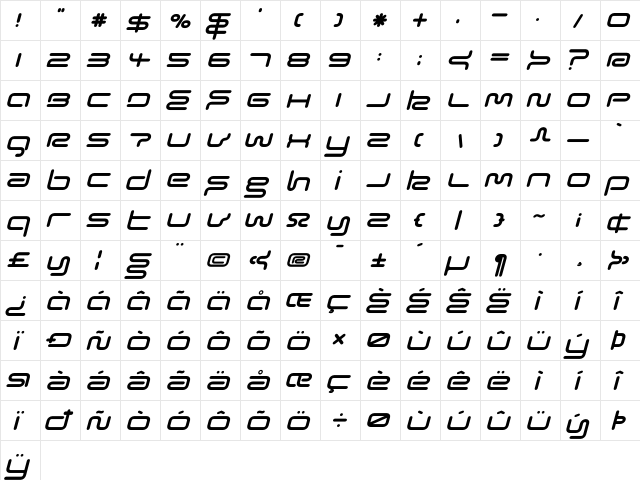
Euphoric HeavyItalic
Design Context for Euphoric Typeface
Euphoric is a composed and adaptable typeface that performs quietly and consistently across a wide range of design contexts. The dynamic lean of this cut emphasises speed and emphasis in any layout.
Pro Tip: Use Euphoric for emphasis, pull quotes, and subheadings where its slanted energy can add rhythm to the layout.